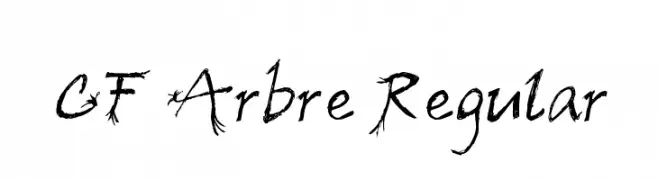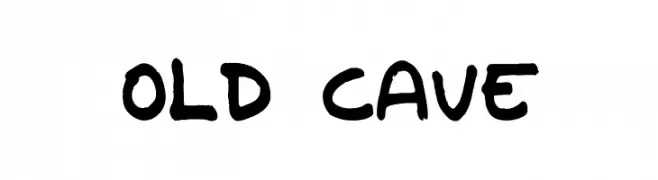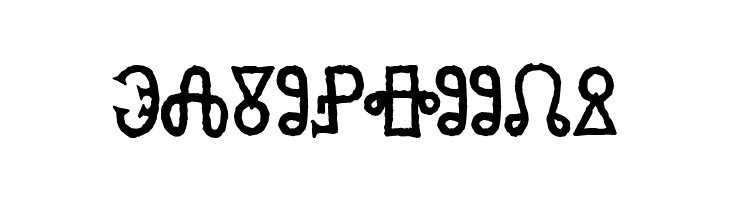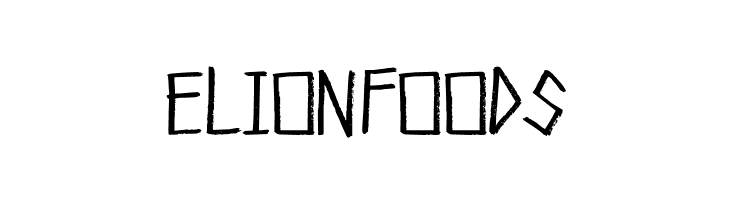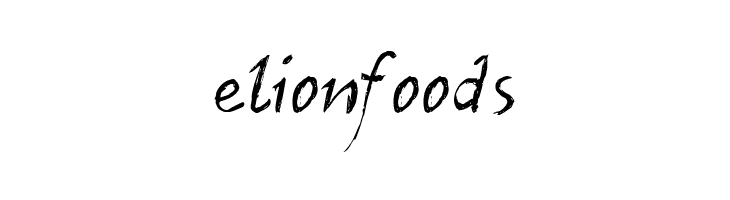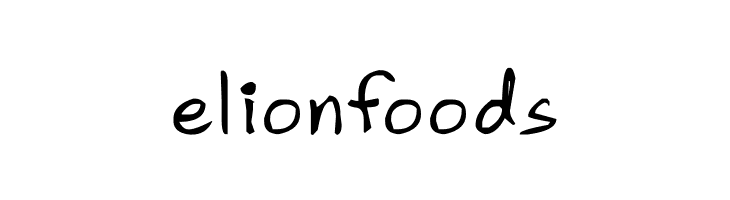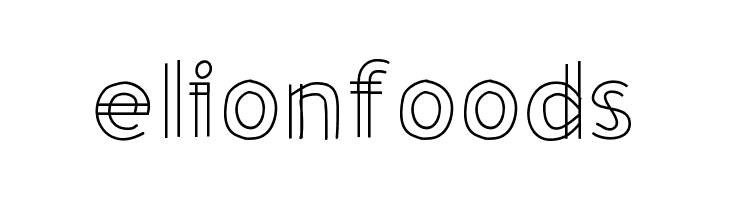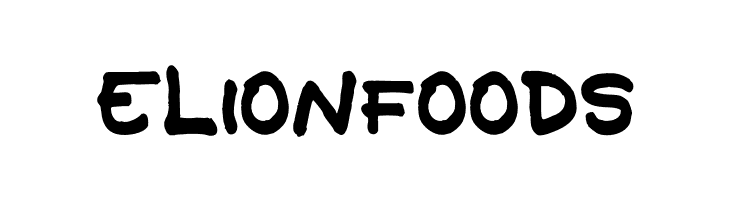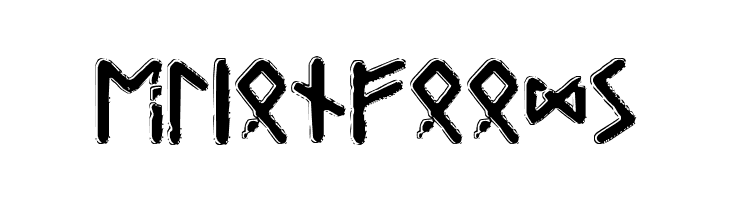
( Fonts by Astigmatic One Eye Typographic Institute - Brian J. Bonislawsky - astigmatic.com )
A decorative font inspired by the ancient Glagolitic script, featuring bold and intricate letterforms.
A rugged, hand-drawn font with a natural, adventurous style.
( Fonts by Steve Cloutier - www.cloutierfontes.ca )
A rustic, organic font with a hand-drawn, tree-like appearance.
( Fonts by Luedecke Design Font Co. - ldfonts.weebly.com )
A geometric, blueprint-inspired font with overlapping linear elements.
A bold, hand-drawn font with a rustic, organic feel.
( Fonts by Steve Cloutier - www.cloutierfontes.ca )
A bold, decorative font with intricate patterns and a playful, adventurous style.
( Fonts by David Kerkhoff - www.hanodedphotography.com )
A runic-inspired font with angular, geometric shapes and a bold, uniform appearance.